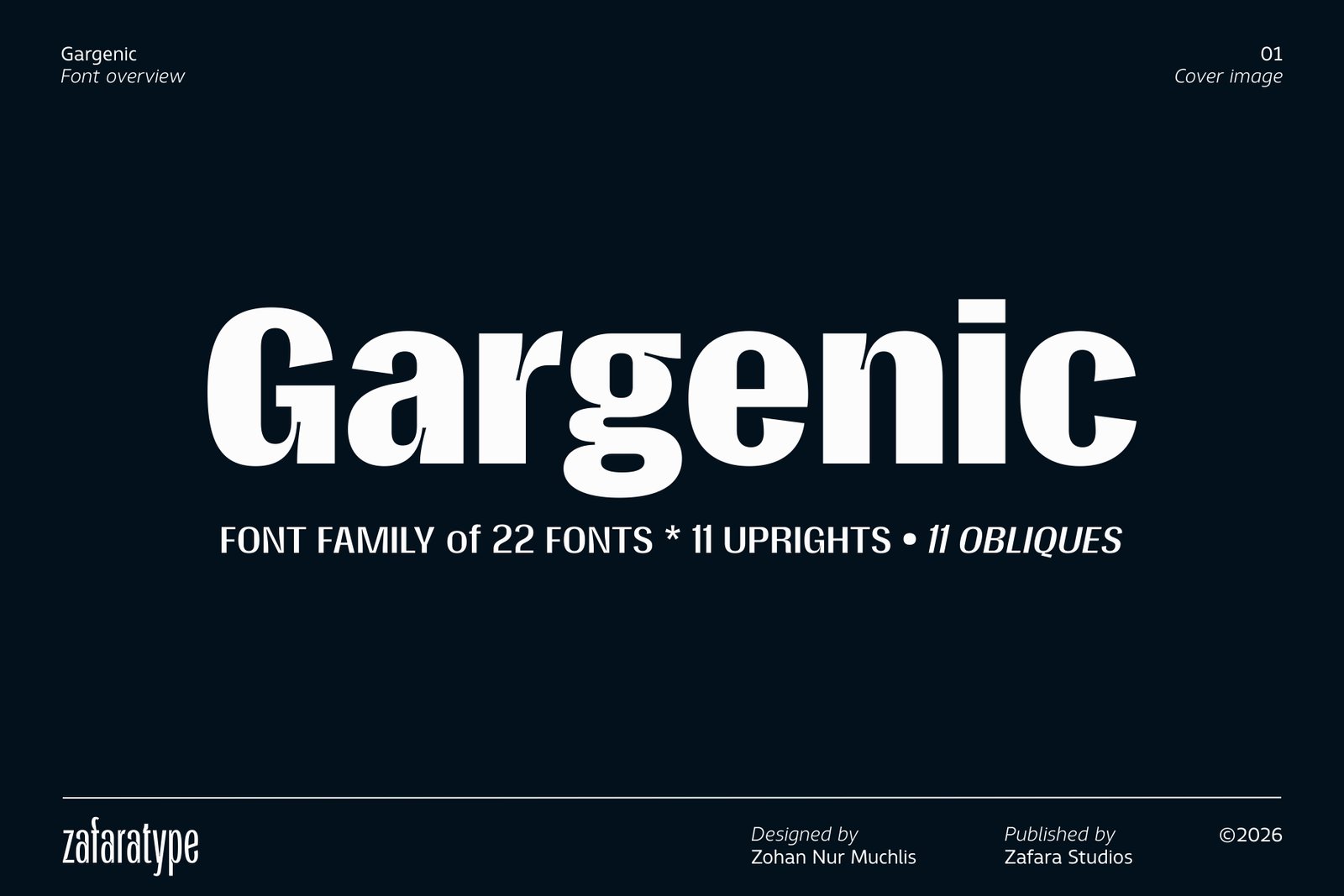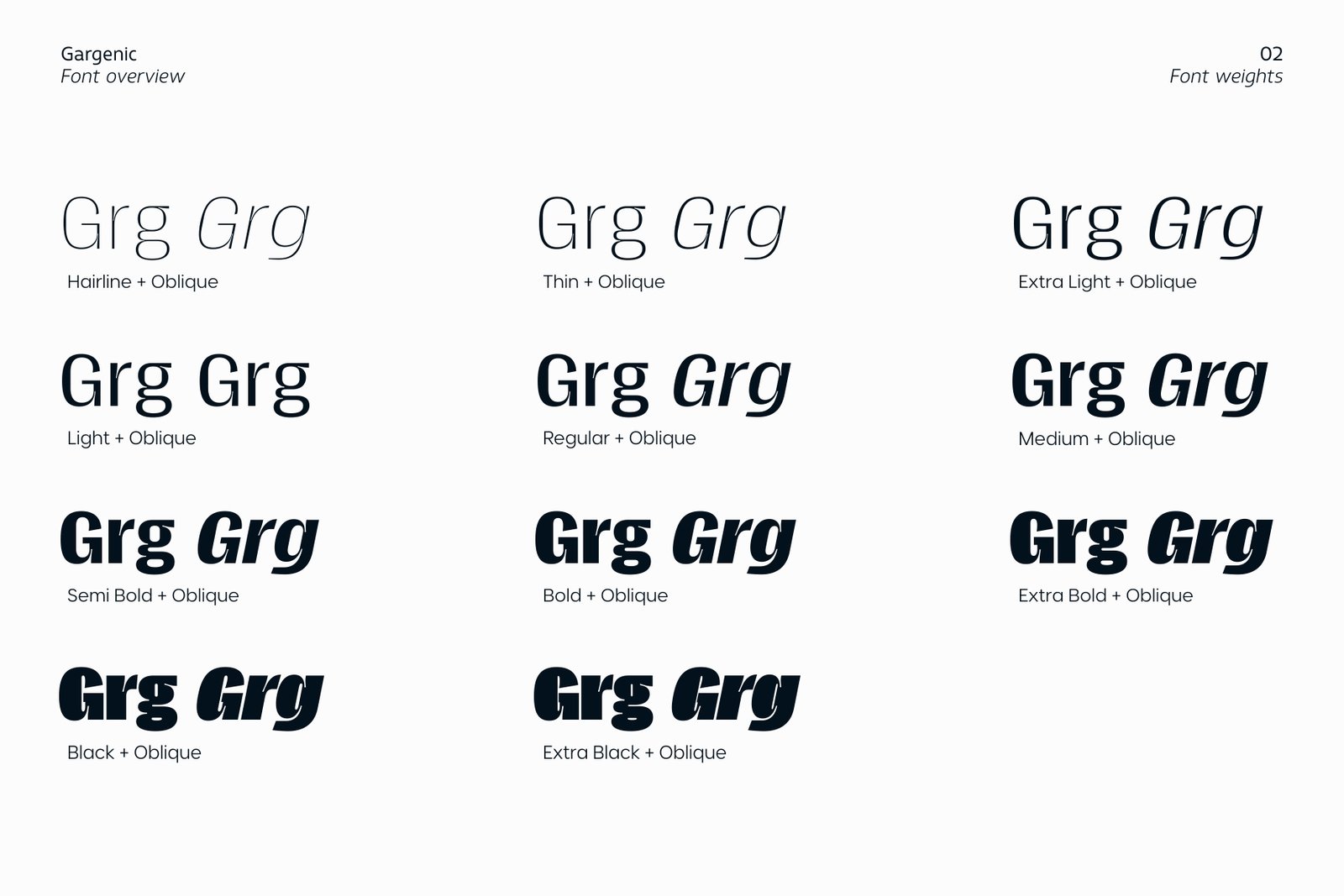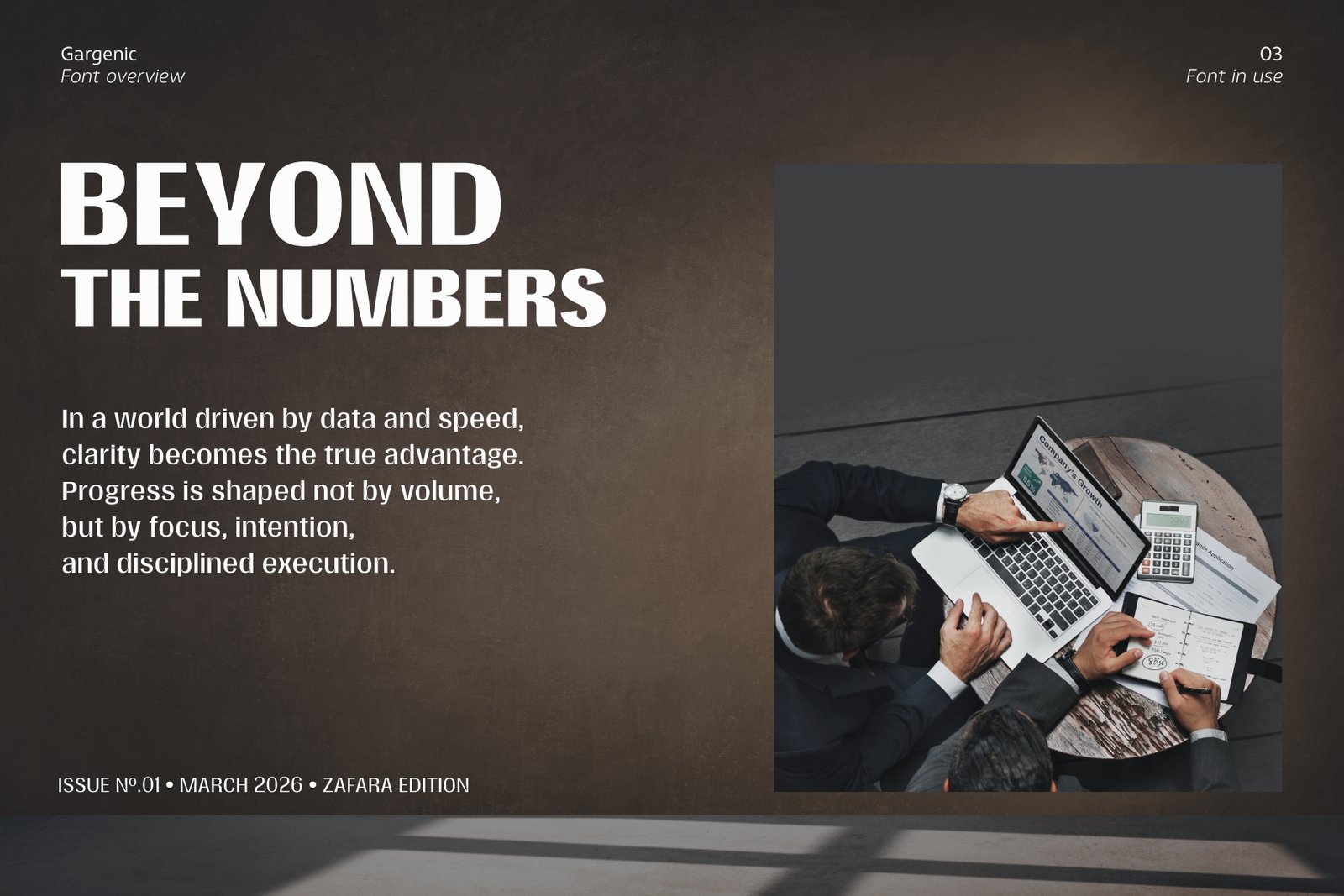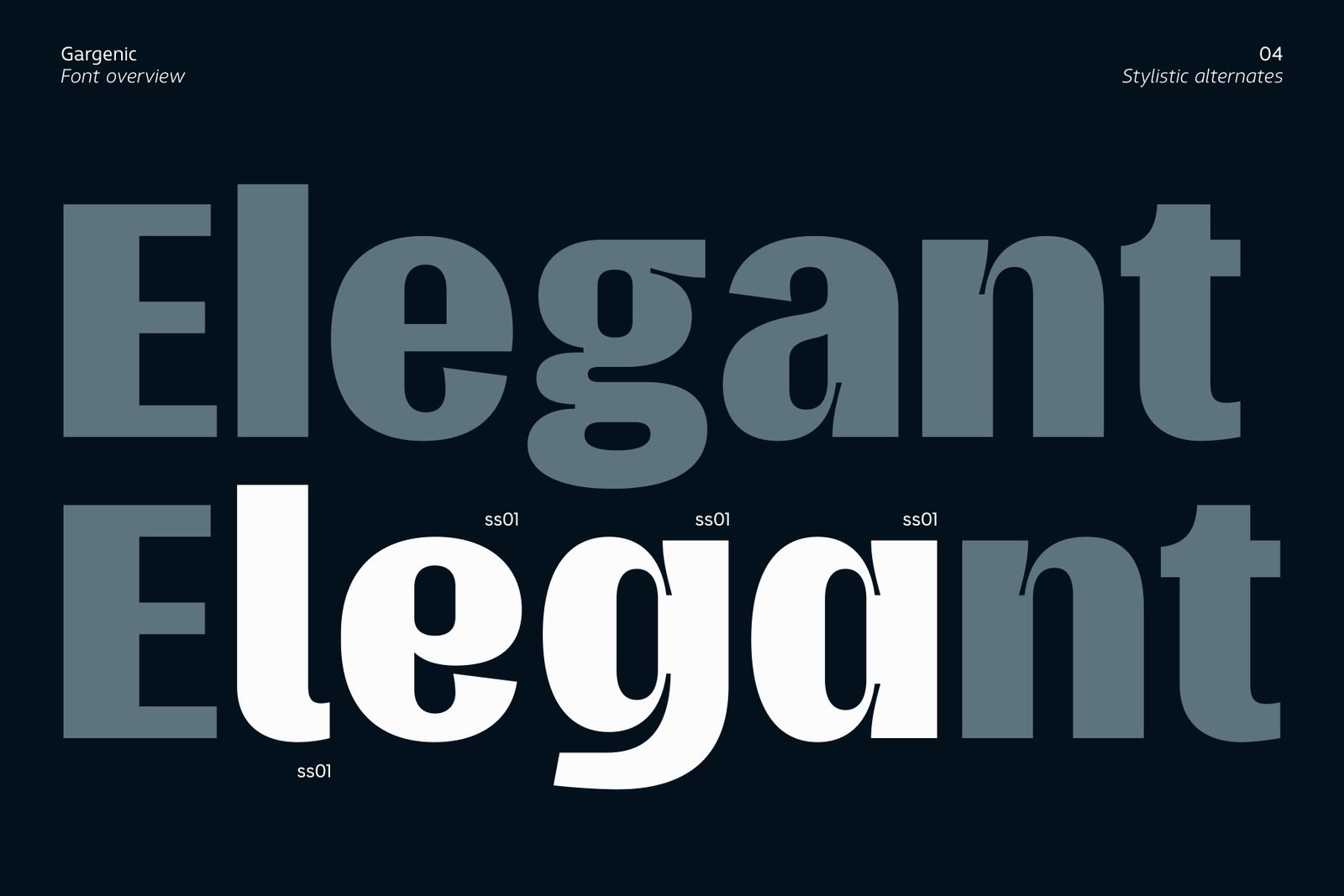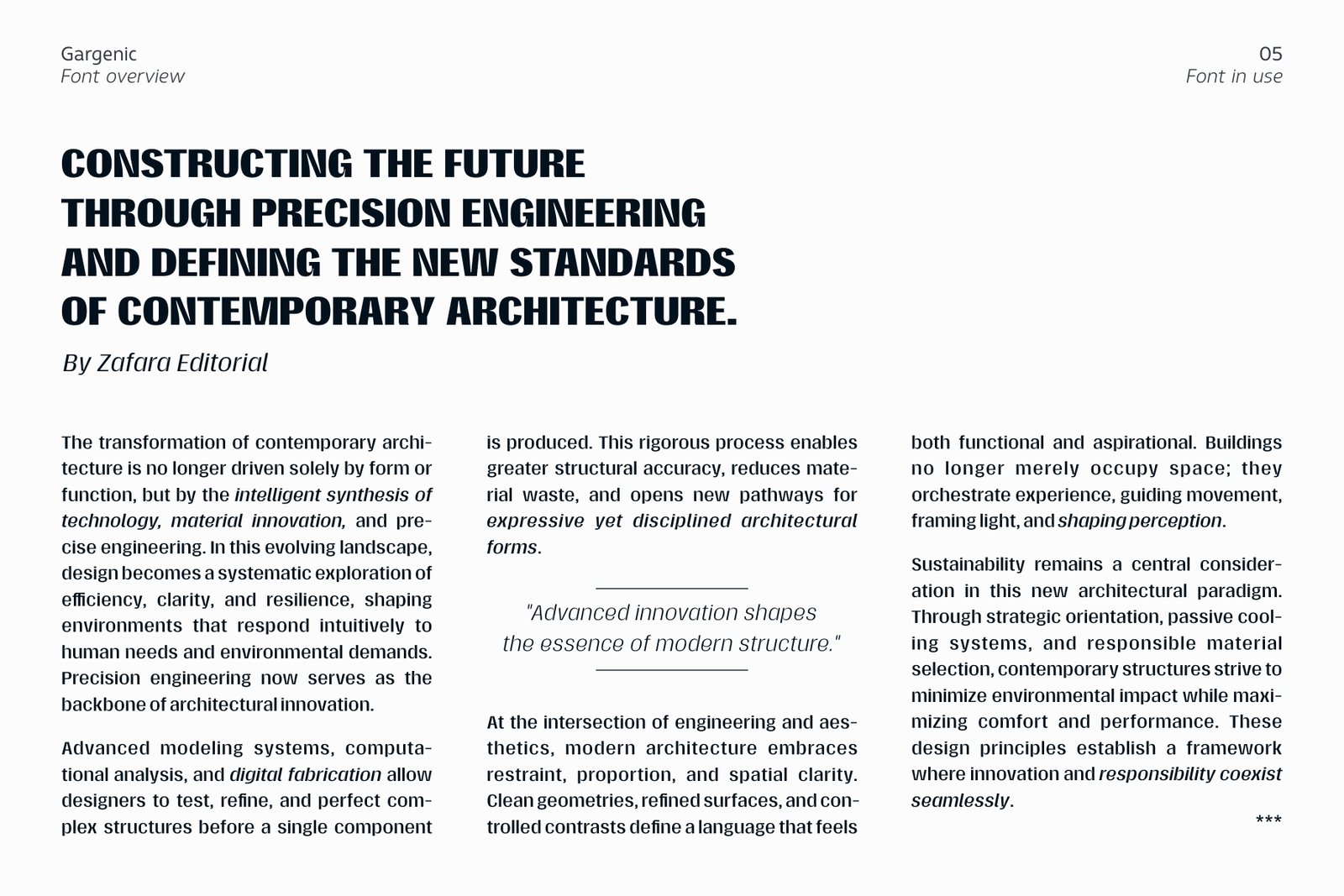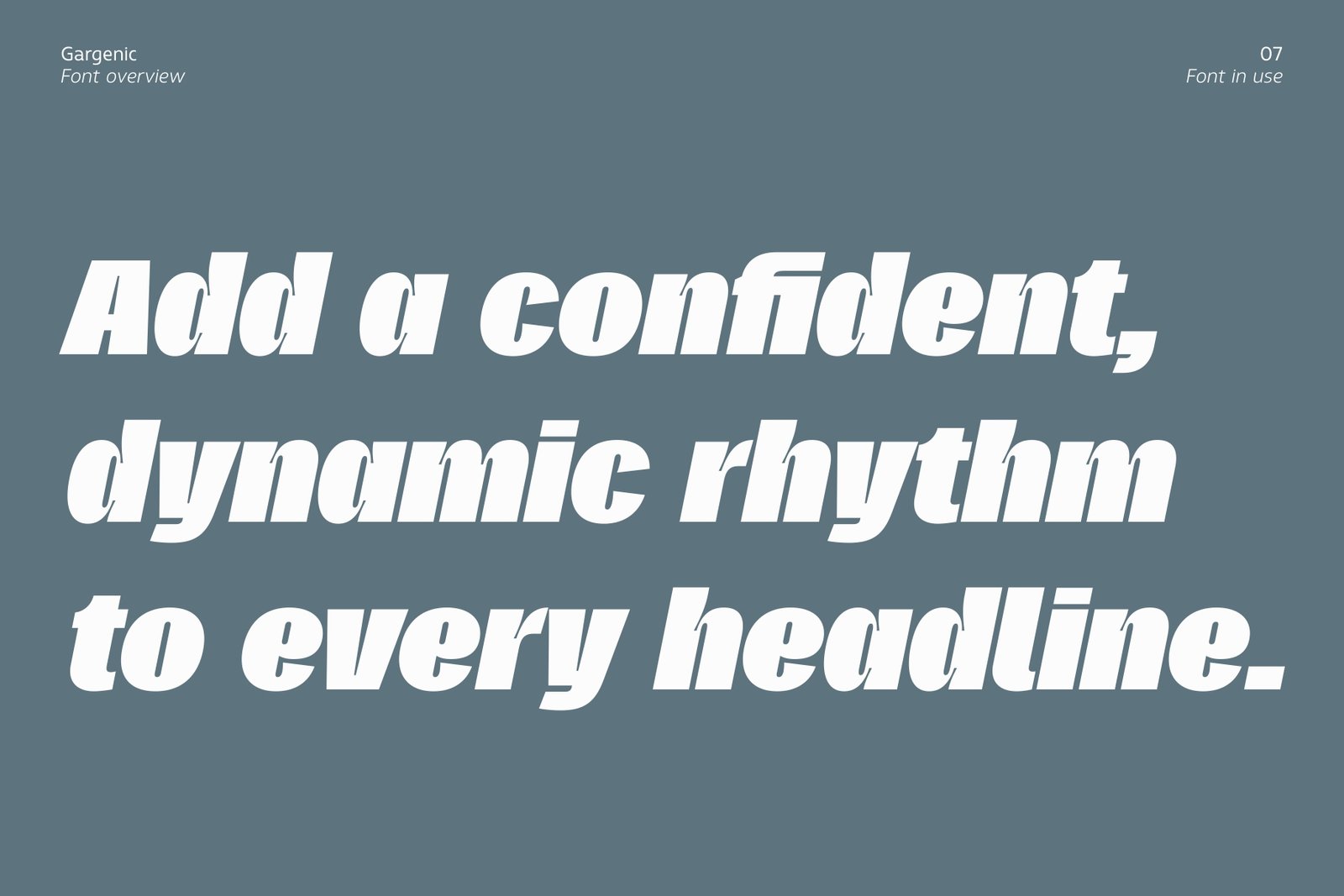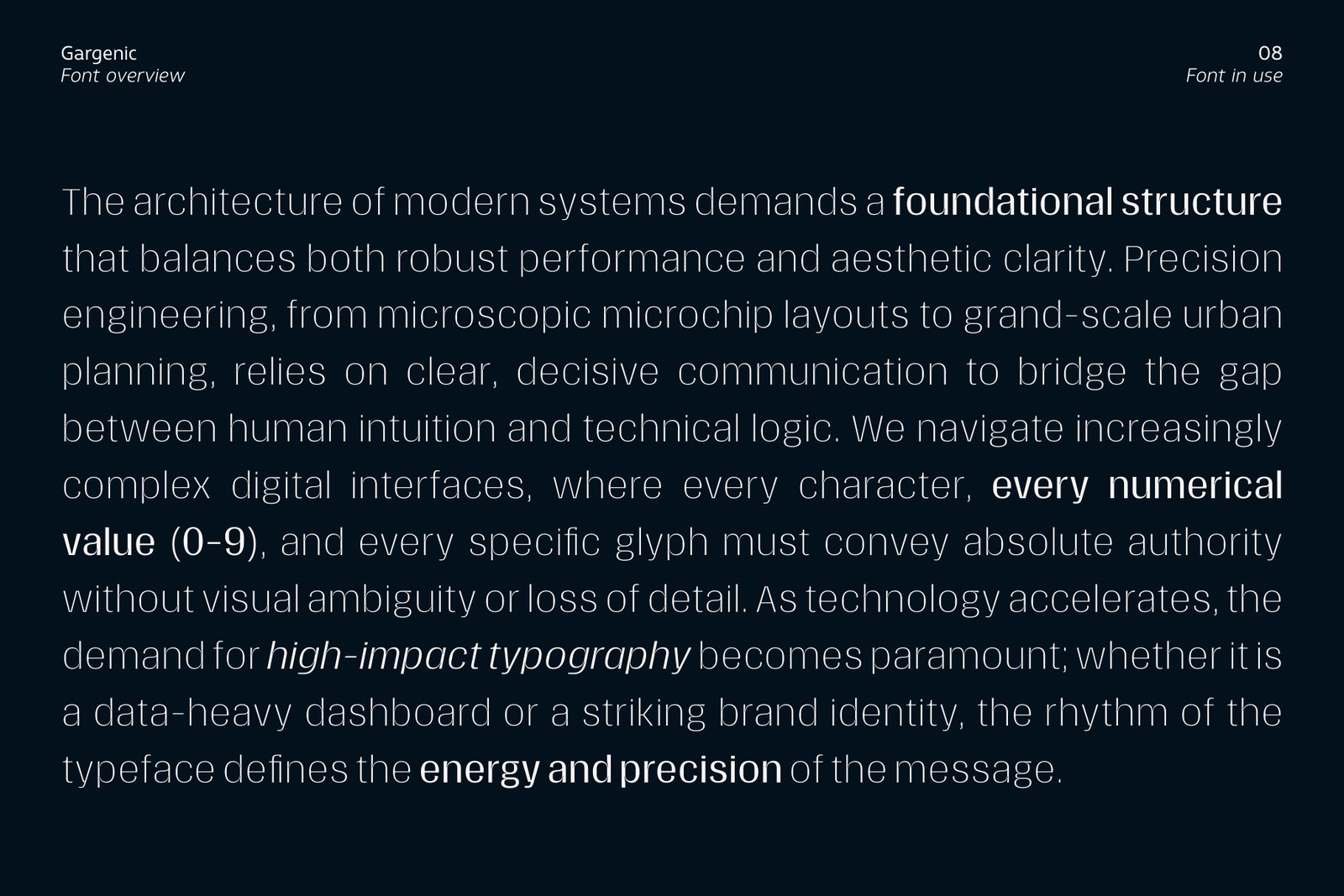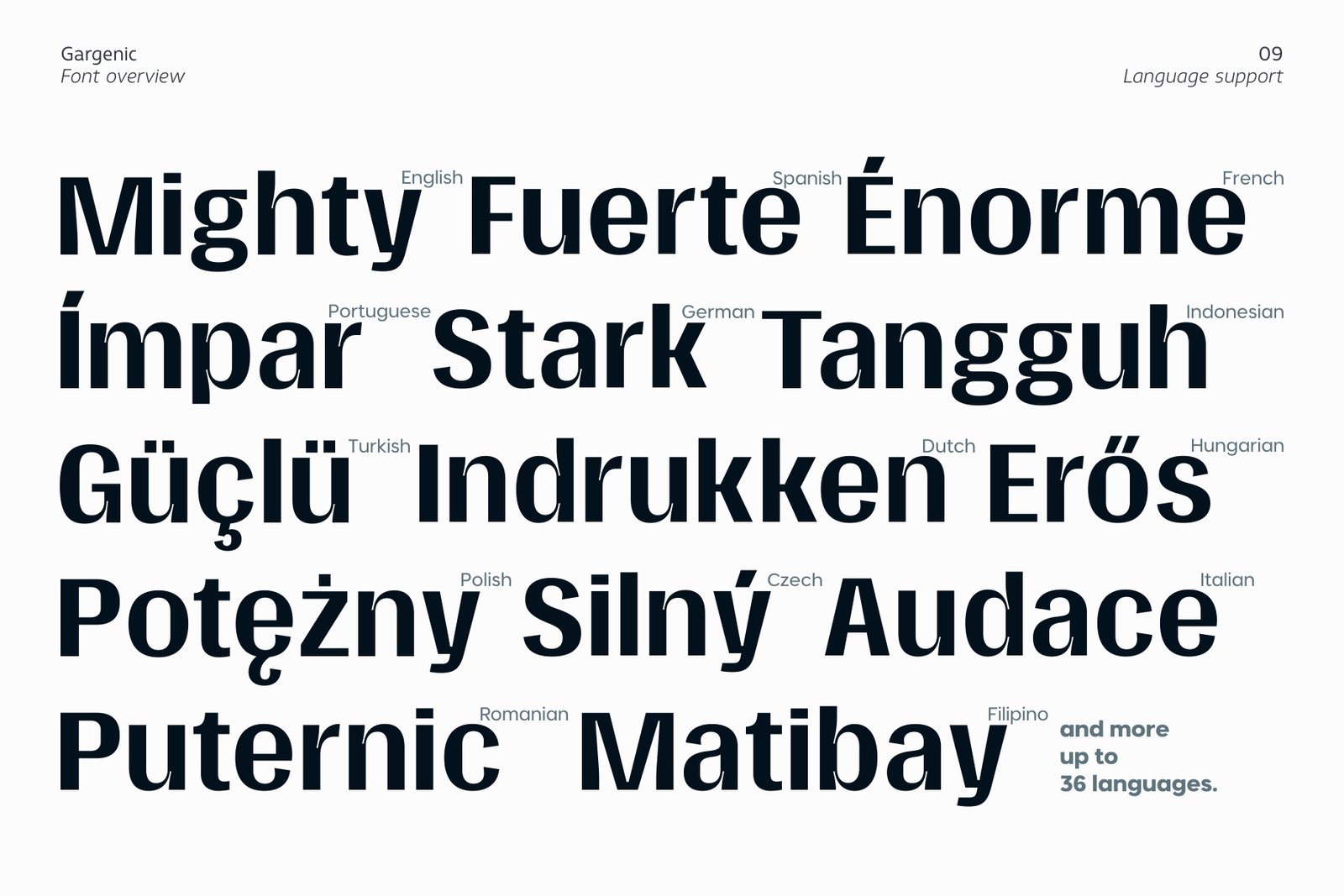
Gargenic font family cover featuring bold sans-serif typography on a dark background.
A showcase of Gargenic font weights ranging from Hairline and Thin to Extra Black and Obliques.
Gargenic font used in a business editorial layout titled "Beyond the Numbers".
Comparison of Gargenic standard characters and stylistic alternates (ss01) for the word "Elegant".
Gargenic font family applied to a multi-column architectural article for legibility testing.
The complete glyph set for Gargenic font including ligatures, numbers, and symbols.
Large bold oblique text "Add a confident, dynamic rhythm to every headline" in Gargenic.
Gargenic font used in a technical context describing modern systems and precision engineering.
Gargenic font displaying words in various languages like French, Spanish, German, and Indonesian.
Elegant light-weight oblique text "Light Air and Space" showcasing the refined side of Gargenic.
A bold typographic display of Gargenic font using various symbols like hashtags, ampersands, and brackets with the words Clarity, Focus, and Design.
Infographic showing Gargenic font's OpenType features including superscript, subscript, ligatures, fractions, and case-sensitive forms.
Gargenic is a bold and contemporary sans serif font family that blends strong geometric construction with refined proportions and distinctive inktrap detailing. Characterized by its sharp corners, compact forms, and precision-cut terminals, Gargenic delivers high visual impact with excellent clarity, making it ideal for designs that demand strength, modernity, and a confident tone.
With balanced proportions and engineered precision, Gargenic bridges functional typography and expressive display aesthetics. Whether used for striking headlines or bold branding systems, it brings authority, energy, and a clean contemporary presence to any project.
• 22 styles: 11 uprights and 11 matching obliques
• 529 glyphs with extended Latin support
• Includes uppercase and lowercase, numerals, punctuation, currency and math symbols, accented characters, and additional Latin glyphs
Gargenic
Gargenic blends geometric strength with precision inktrap detailing. A versatile family of 22 styles (Uprights & Obliques) built for headlines, branding, and modern visual identities that demand authority and clarity.